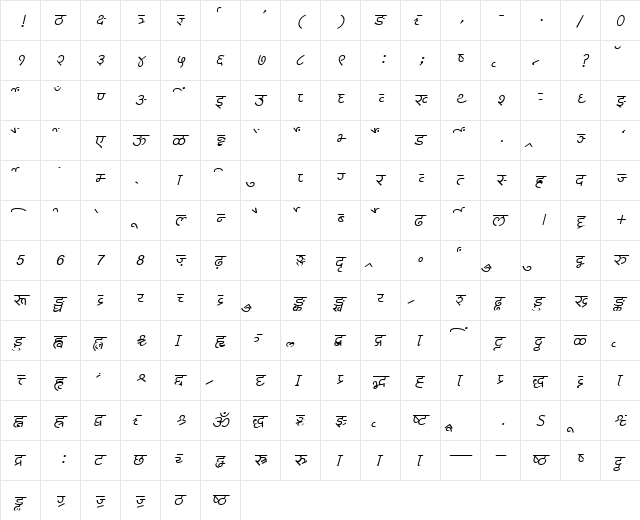
AkrutiDevChakraNormal Italic
Design Context for AkrutiDevChakraNormal Typeface
AkrutiDevChakraNormal offers clean, dependable letterforms without strong stylistic allegiance, making it a practical choice for designers who need flexibility. The slanted form adds forward momentum and visual energy.
Pro Tip: Try AkrutiDevChakraNormal for annotation and caption copy alongside an upright companion — the contrast in angle creates a dynamic but ordered typographic system.